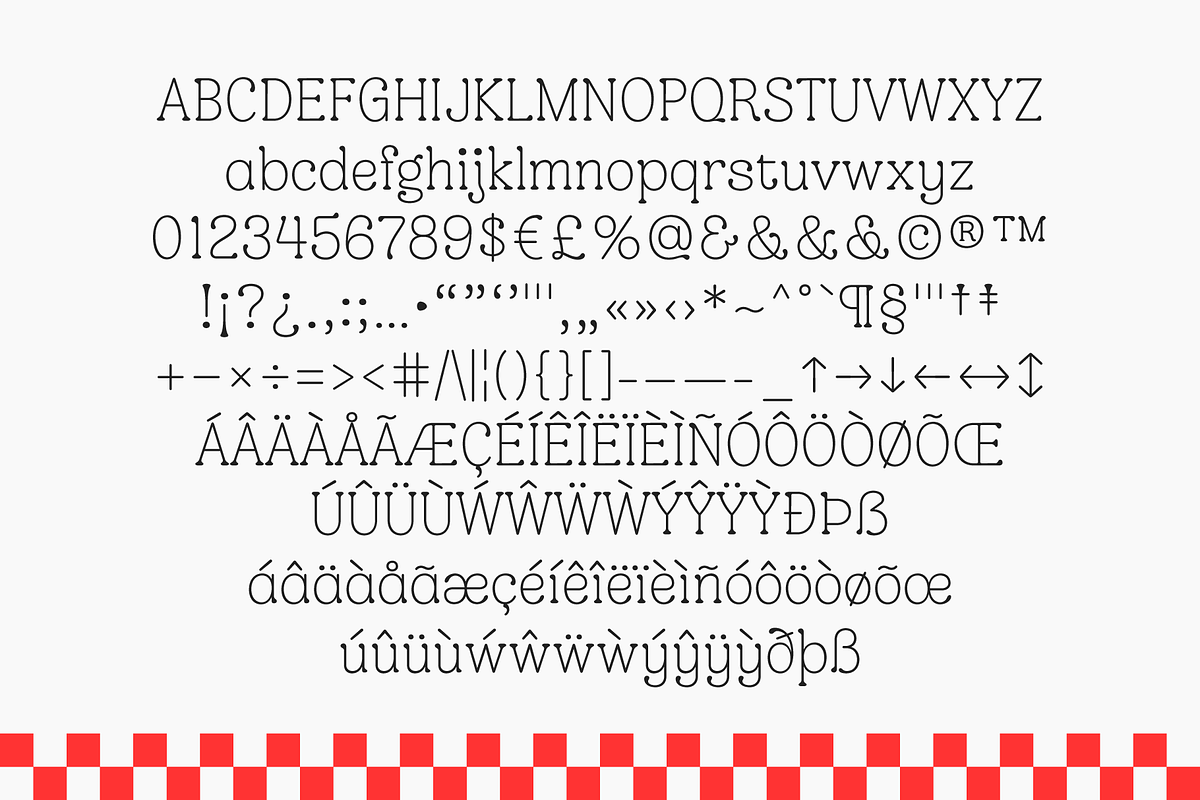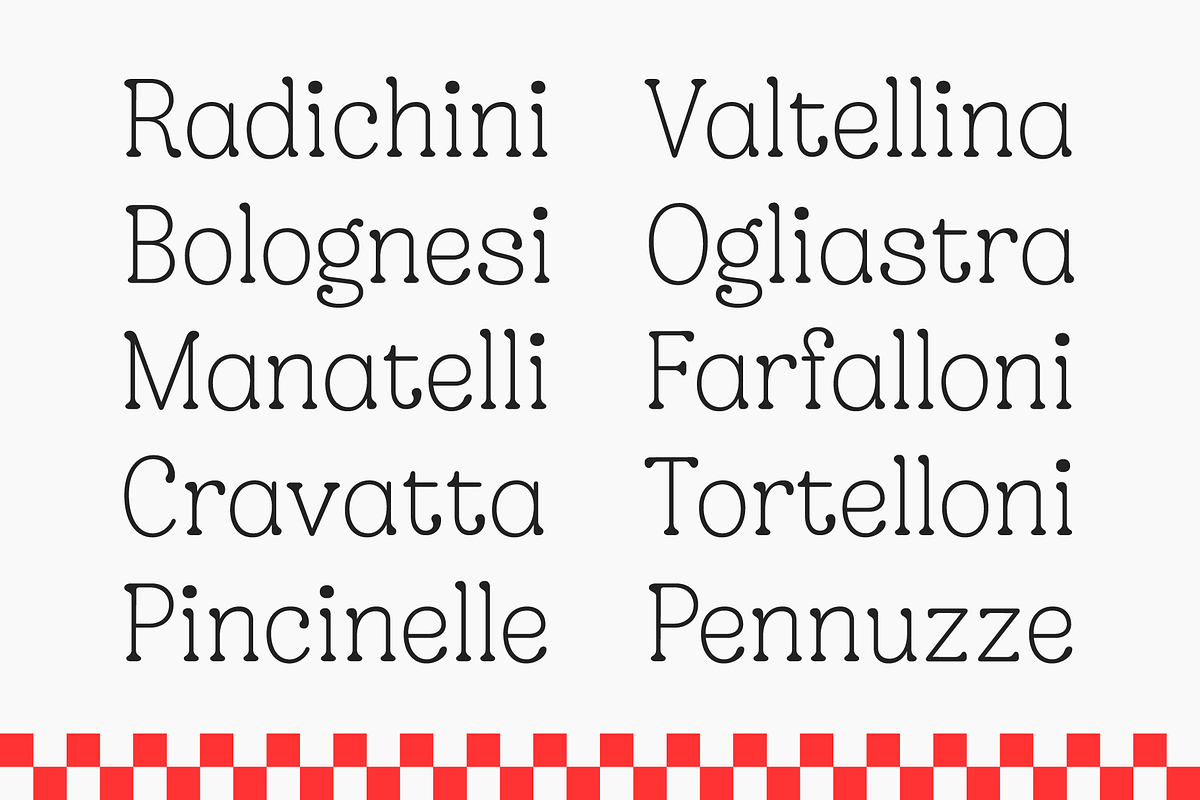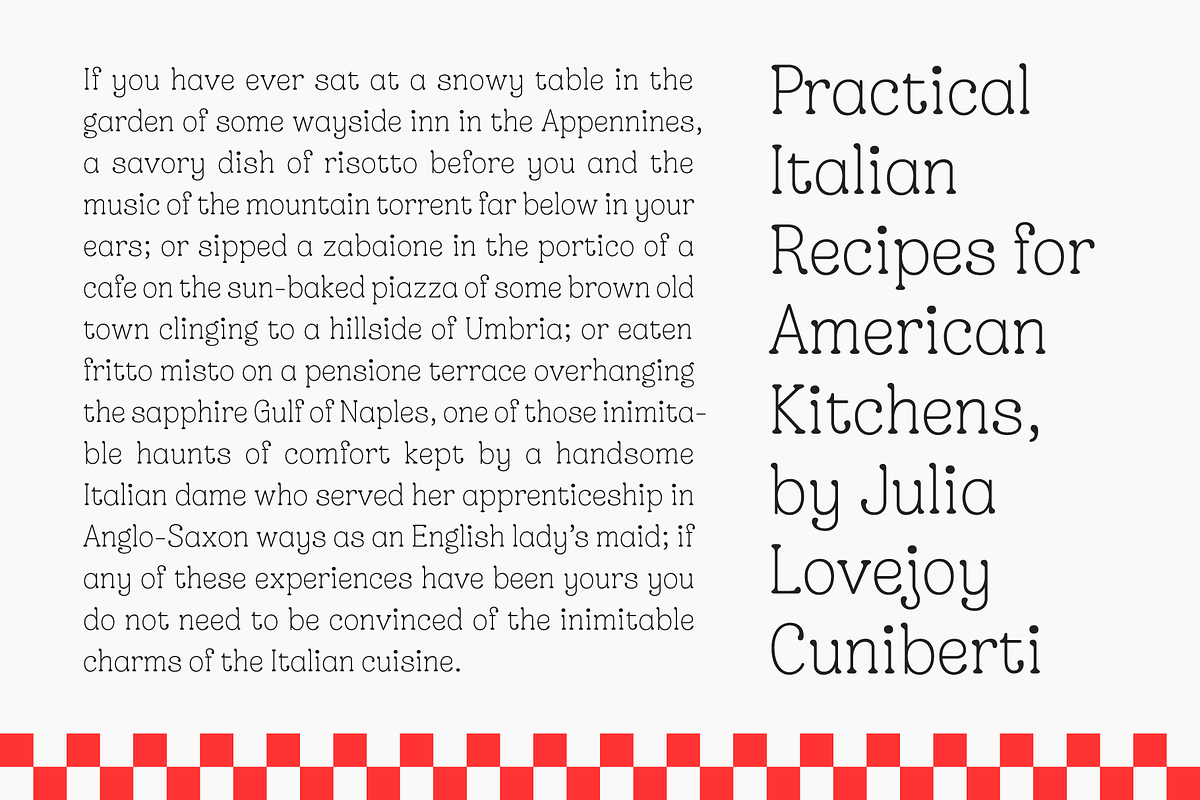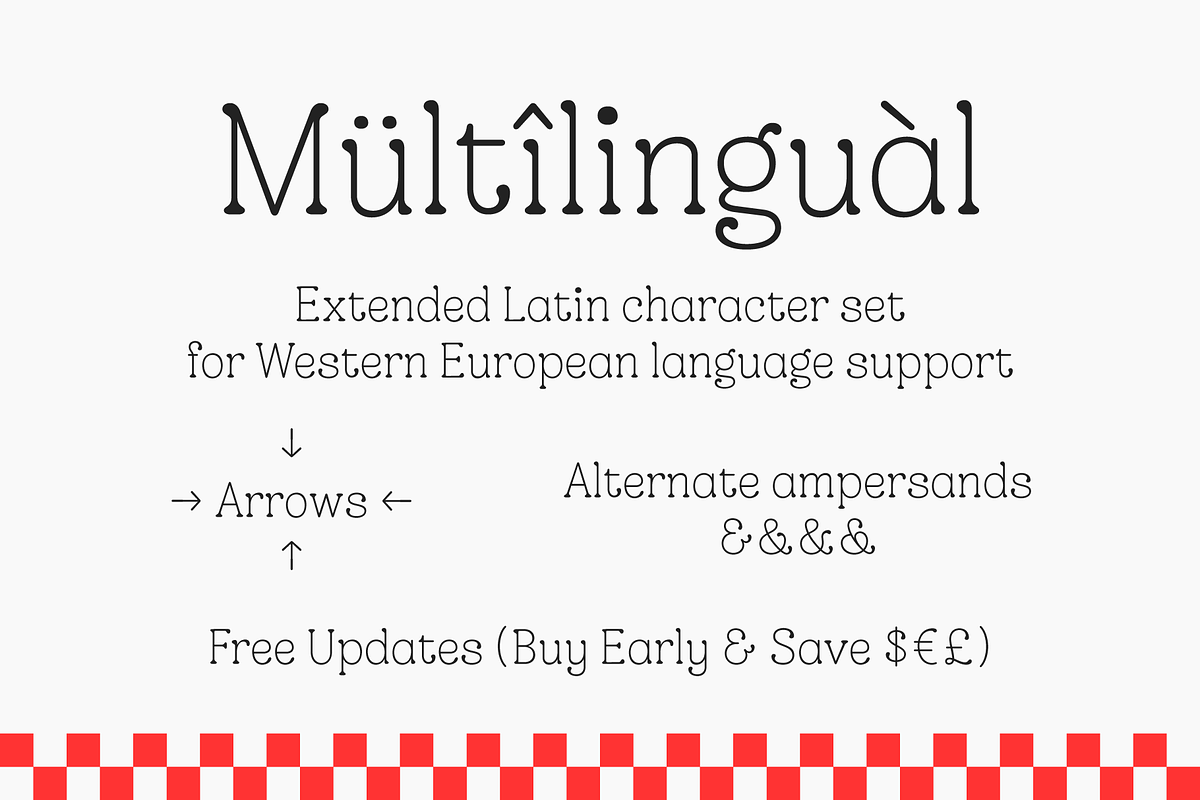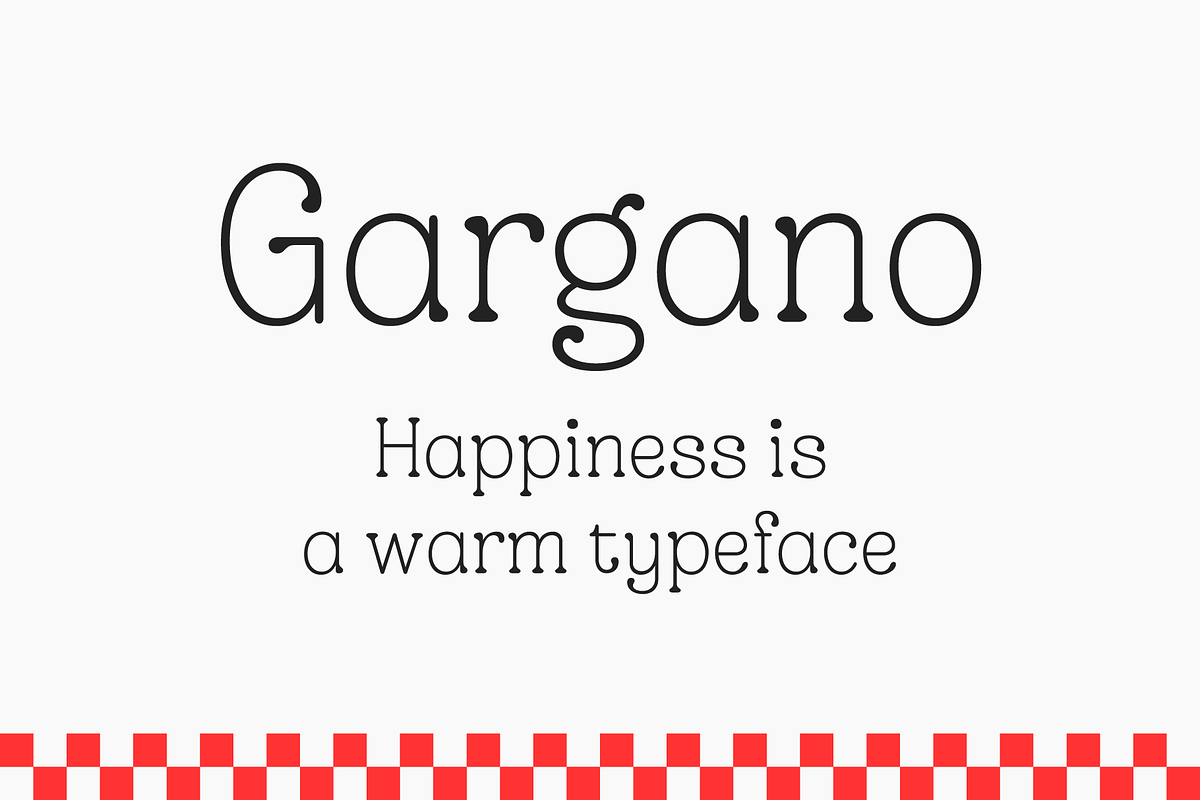
Gargano
Gargano is comfort in a typeface. Like a bubbling pizza from a wood-fired oven, or a bowl of handmade mezzelune, this typeface is warm and friendly, and it'll make you warm and friendly, too!
Character set
- Latin alphabet [A–Z, a–z]
- Proportional lining figures [0–9]
- Punctuation and symbols
- Accented characters and additional letters for Western European language support
Language support
English, French, Spanish, Portuguese, German, Italian, Afrikaans, Breton, Catalan, Cornish, Danish, Finnish, Icelandic, Irish, Norwegian, Swedish and many more.